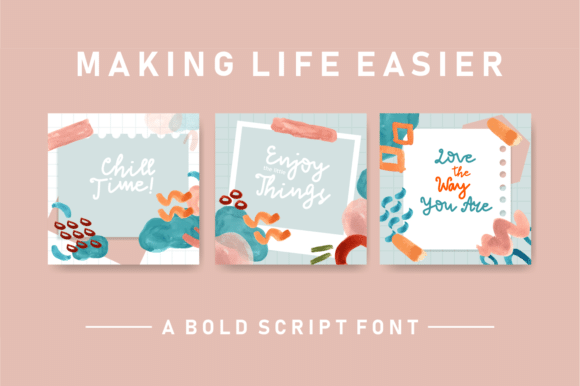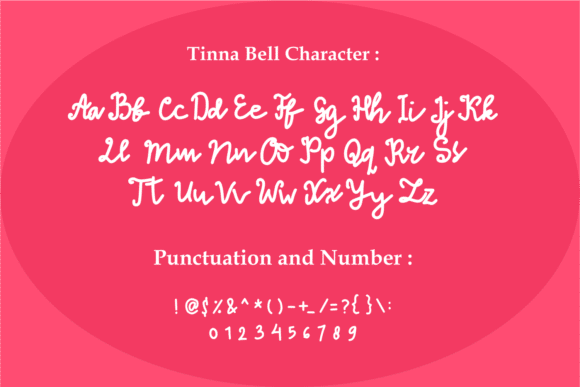
Thinna Bell Font
Thinna Bell is a sweet and subtle handwritten font that is crafted with great care for maximum results. It will add elegance and class to any of your design projects. It will look extraordinary in a variety of contexts.